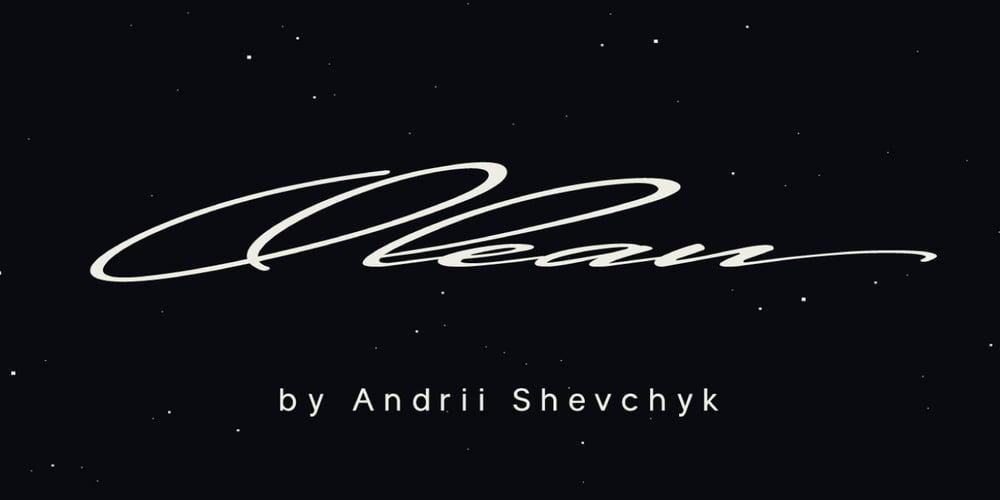
Olean Font Family was designed by Andrii Shevchyk and published by Andfonts. Olean contains 1 styles and family package options. Olean is modern handwritten font, with including a lot of alternates and ligatures. Great for headlines on posters, packaging and advertising.